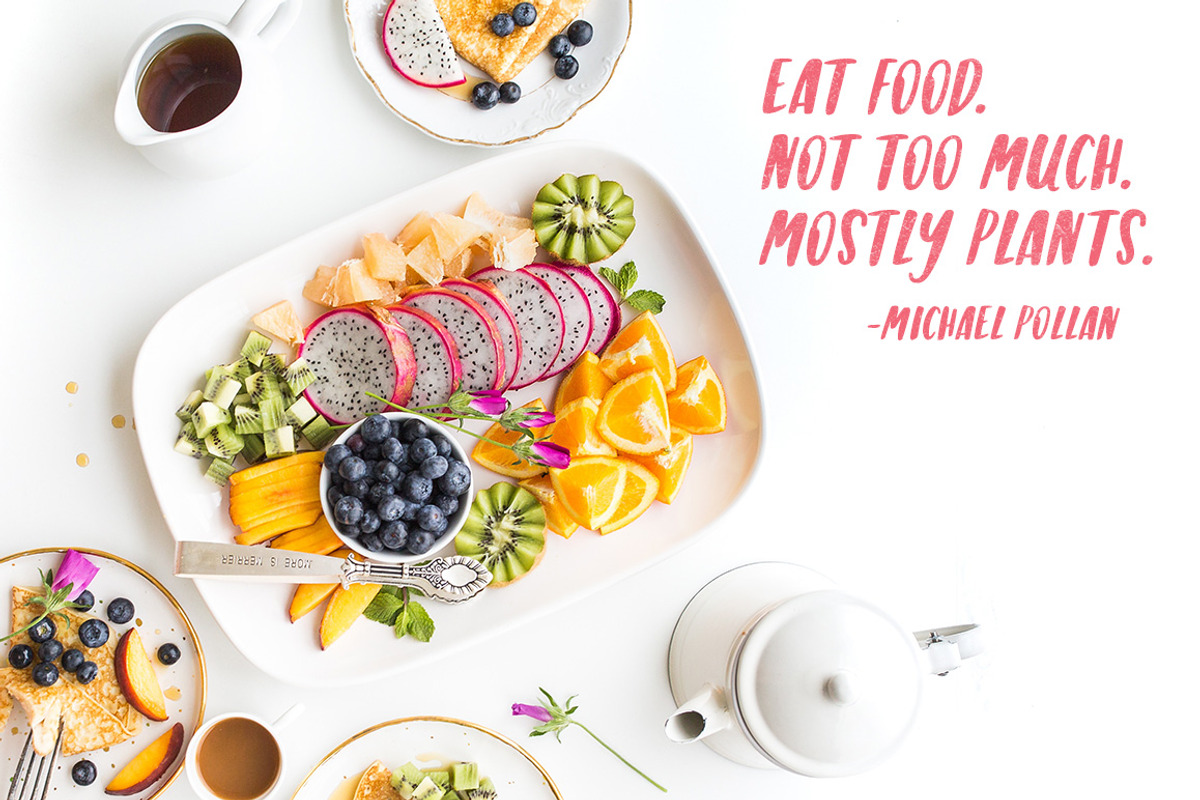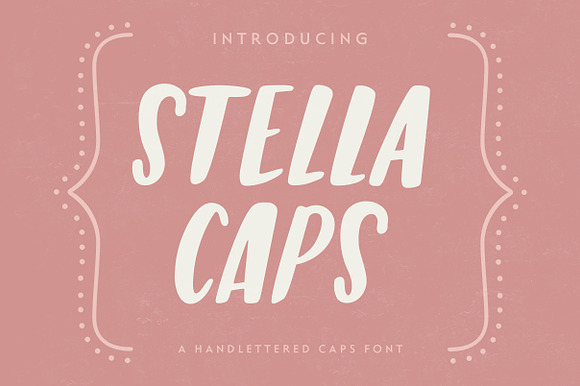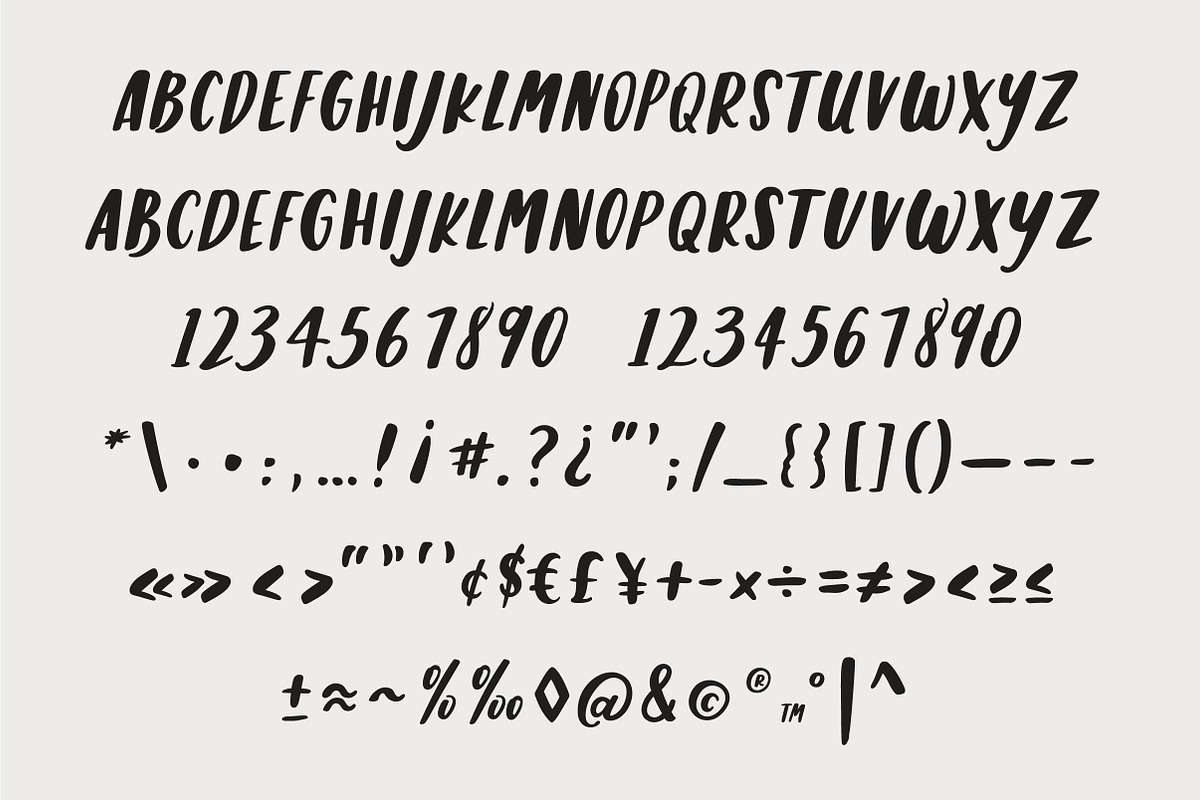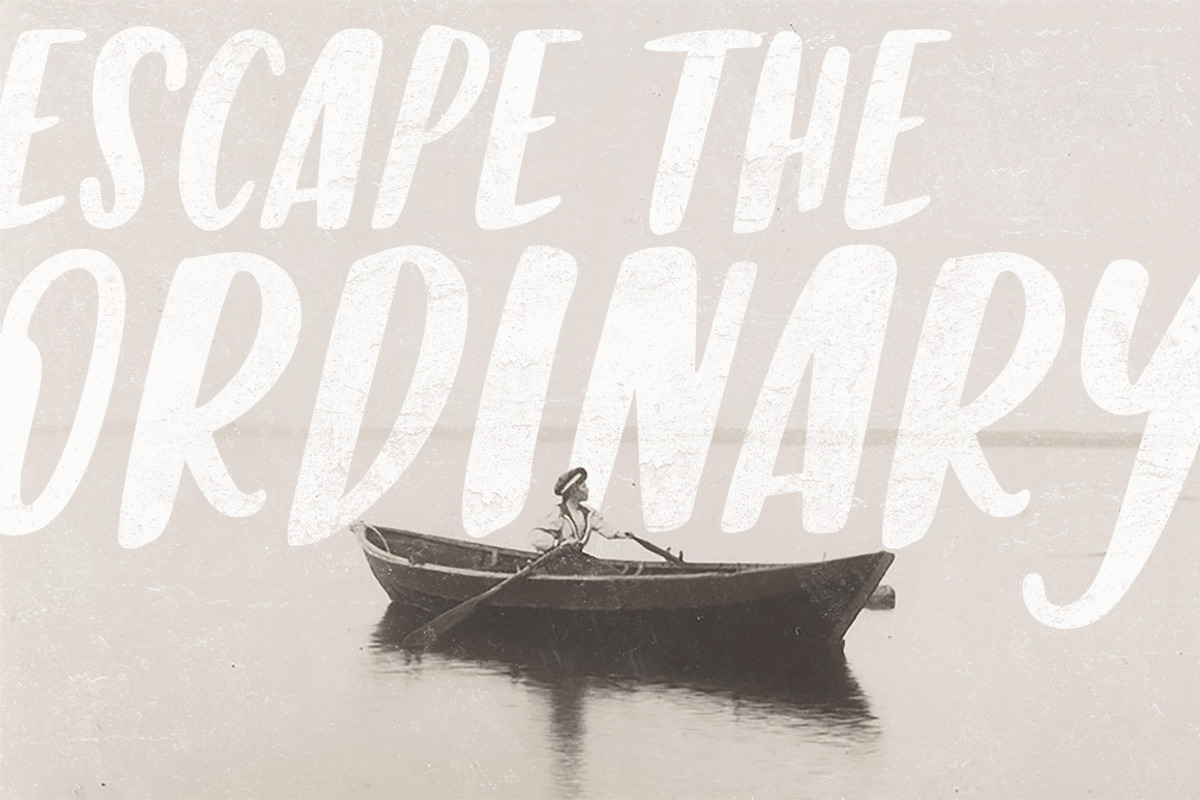
Stella Caps: A Handlettered Font
Introducing Stella Caps, a hand-painted font with a little bit of structure and a little bit of whimsy!
Stella was inspired by designers who love using hand-lettered script fonts but want to incorporate a complementary, caps-only style that still feels handmade.
That being said, we still love Stella as a primary display font. She's perfect for branding, social media, email marketing, wedding projects, prints, greeting cards and more.
Stella has several OpenType features including contextual and stylistic alternates for both letters and numerals to make each word feel truly hand-drawn. These features are available in design programs that support OpenType.